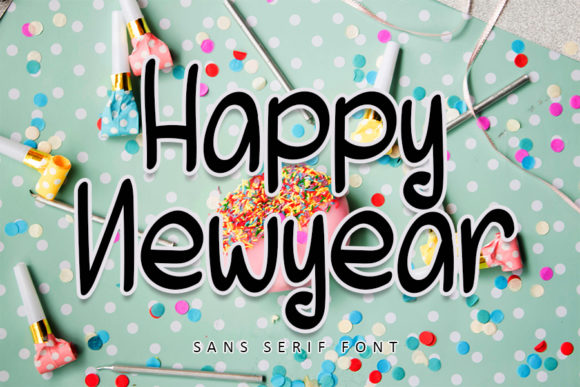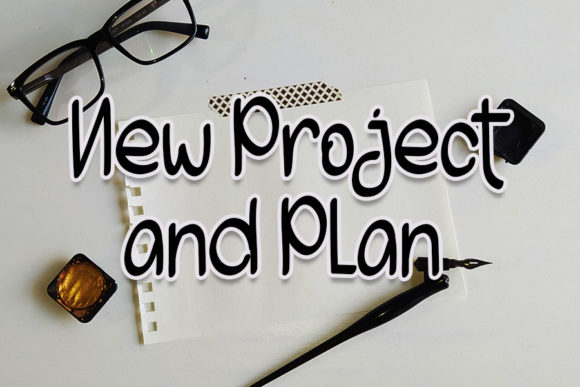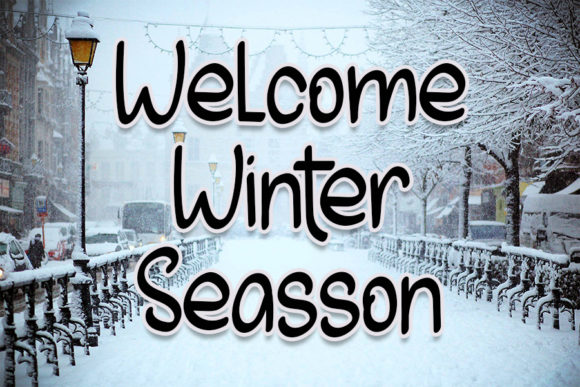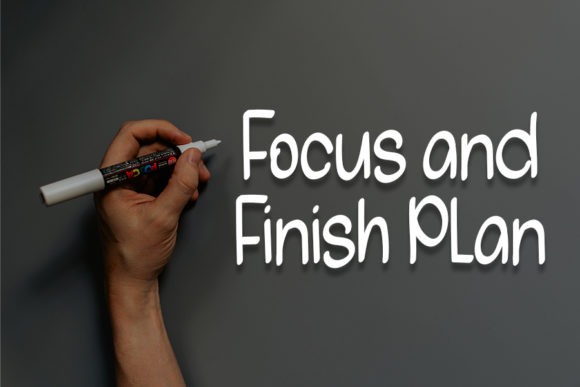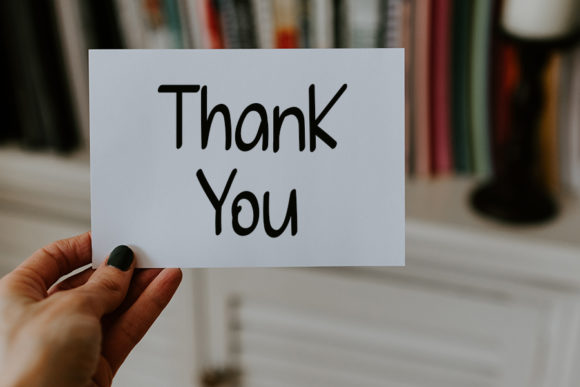
Happy New Year Font
About Happy New Year Font
Happy New Year is a sweet and simple handwritten font. It has elegant and trendy characters. Take your crafting projects to the next level with this amazing font.